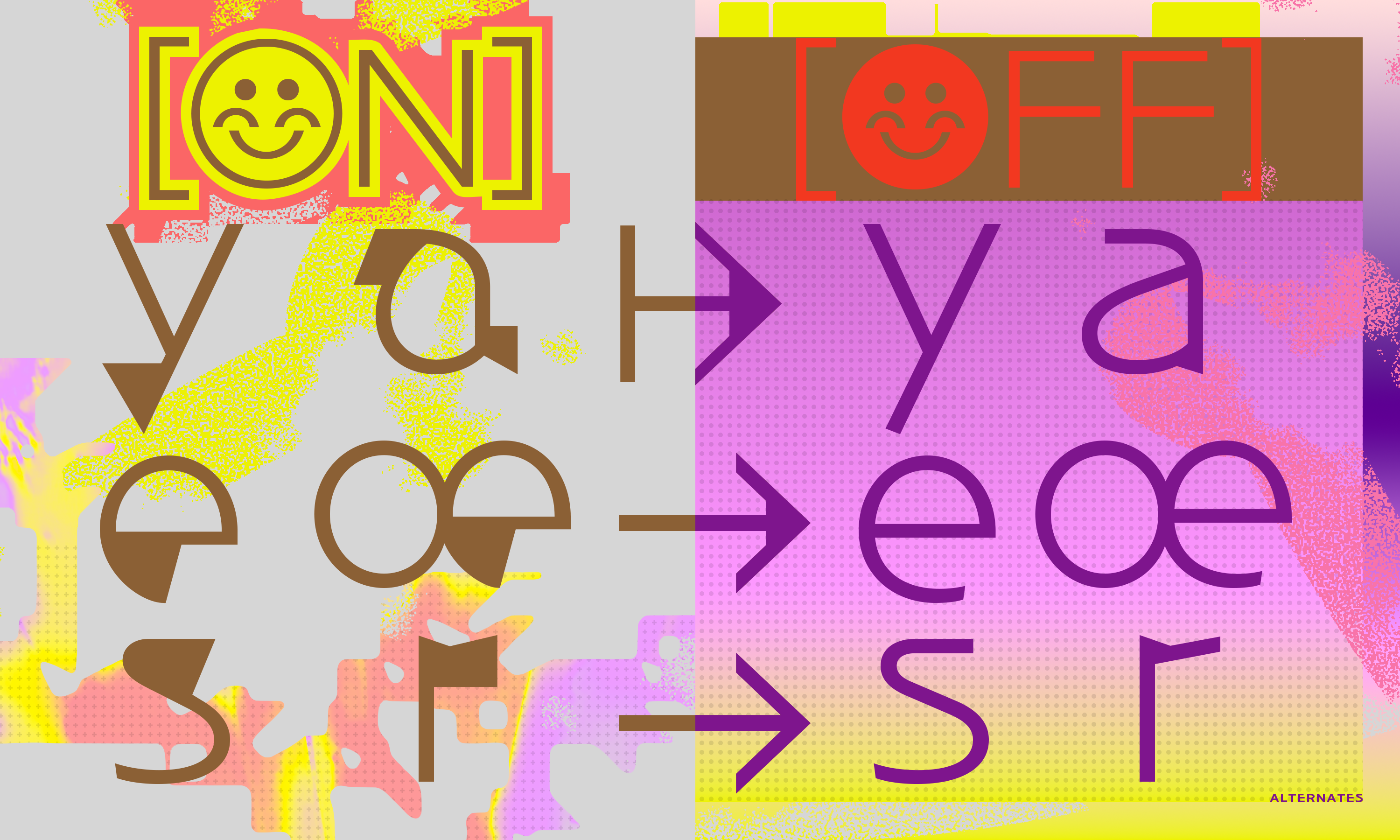
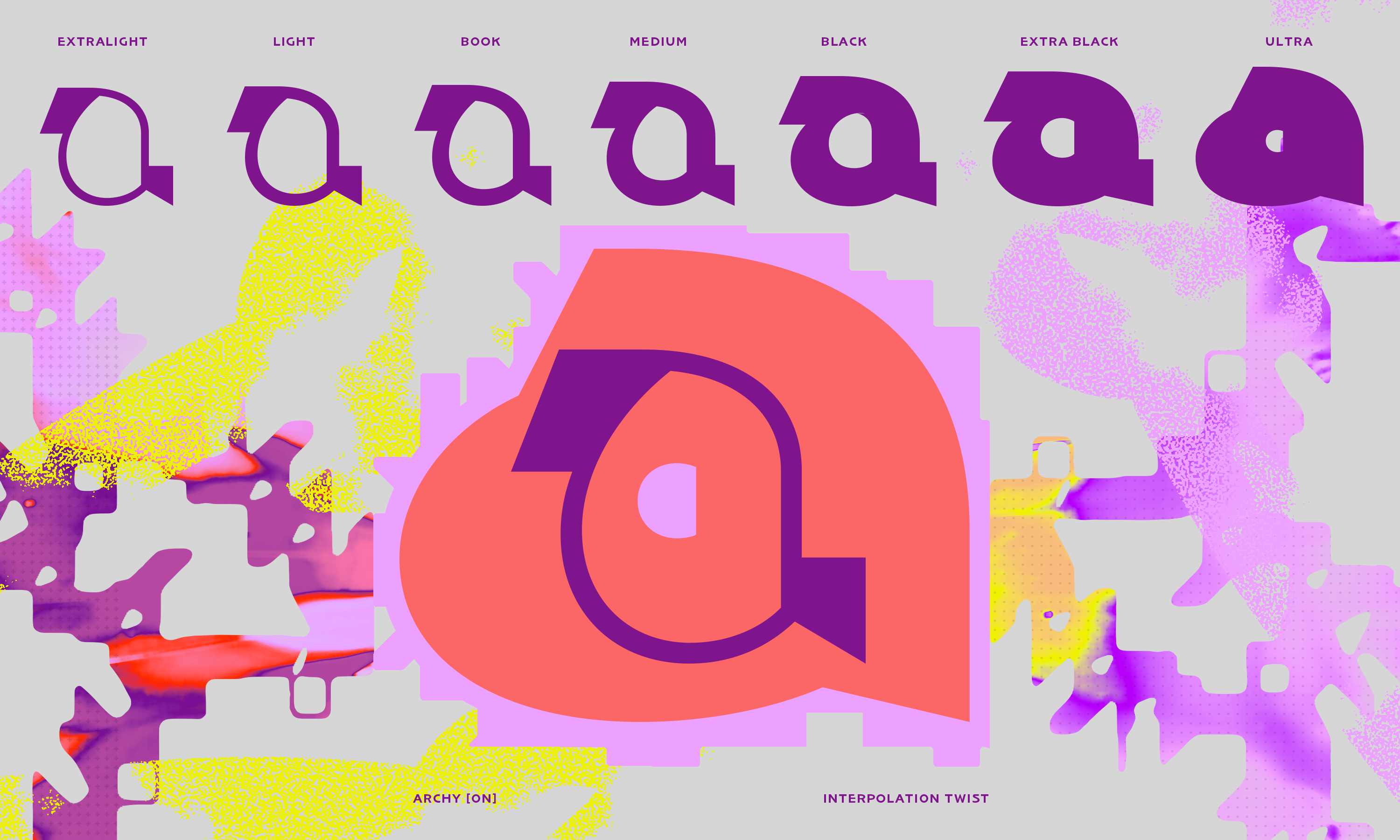
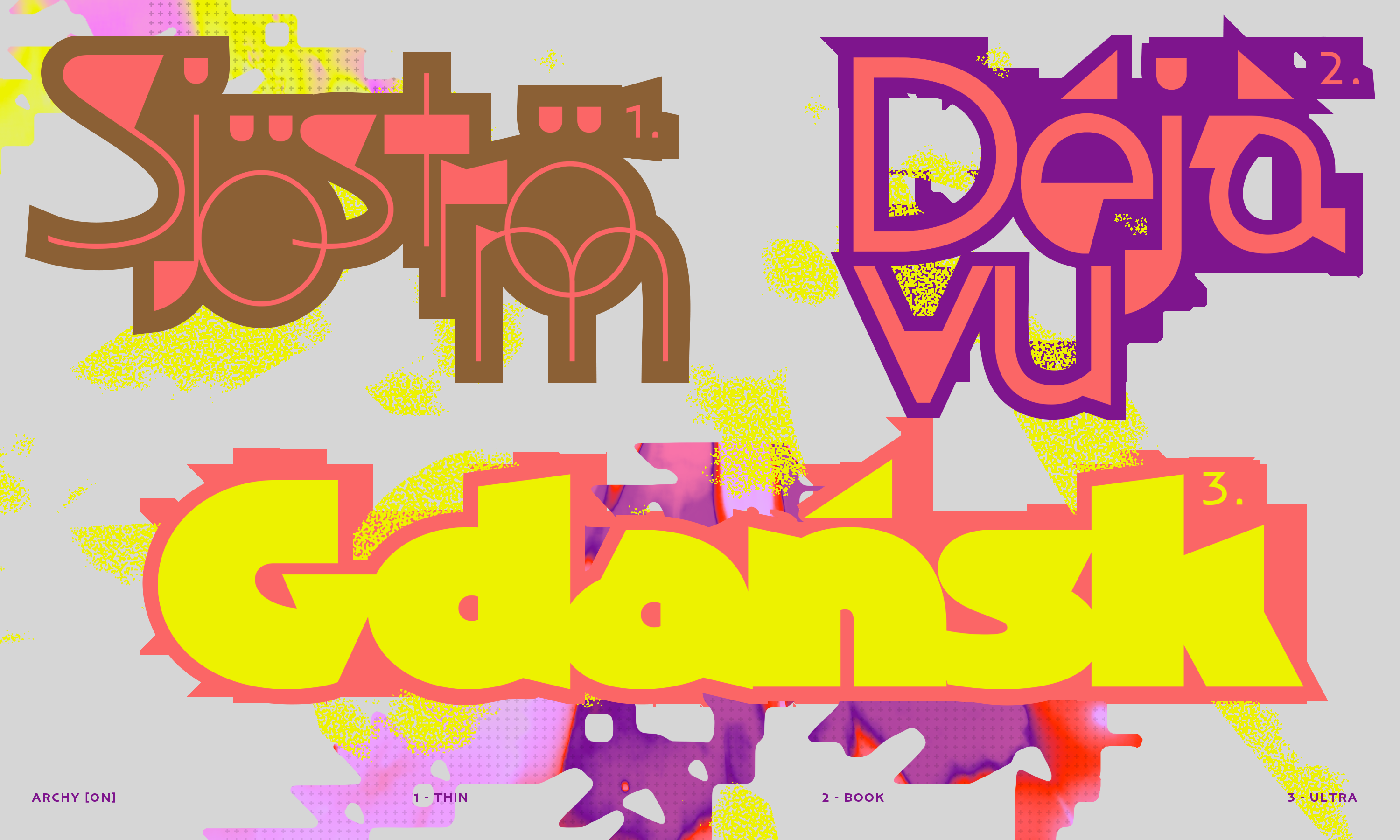
In this article, Hélène Marian delves into the process behind the creation of NaN Archy, her new release at NaN, a non-literal glitchy transcription of her hand-lettering practice.
What begun as a simple translation from brush to machine became an introspective journey on what designing a typeface actually means today (and maybe only today). It’s also a testimony of the center place of the human hand and eye in the type making process.
A Magic Trick?
Everything in type design is but an illusion: to appear identical or aligned, shapes need to have different sizes and weight (we call that “optical corrections”). This is the abc of type design.
Behind these billions of engineered curves lies a very manual and organic work, correcting geometro-digital perfections that would look just odd to the human eye. One has to alter them in a perfect but non mathematical way in order to trick other human eyes, closer to distorting mirrors than to precision lenses. In that, type design is but a complex magic show where the designer uses their tricks to produce shapes that should be perceived without intention, without humanity, transparent. We use to say that a good typeface is one that makes itself be forgotten. The crystal goblet metaphor.
What if disclosing some of these tricks, making them visible, instead of destroying the show, gave it even more spice? From its blackest to its thinnest style, NaN Archy brings you behind the type making scene, letting you squint at the hours of rehearsals necessary to the credible disappearance of the rabbit in the hat.
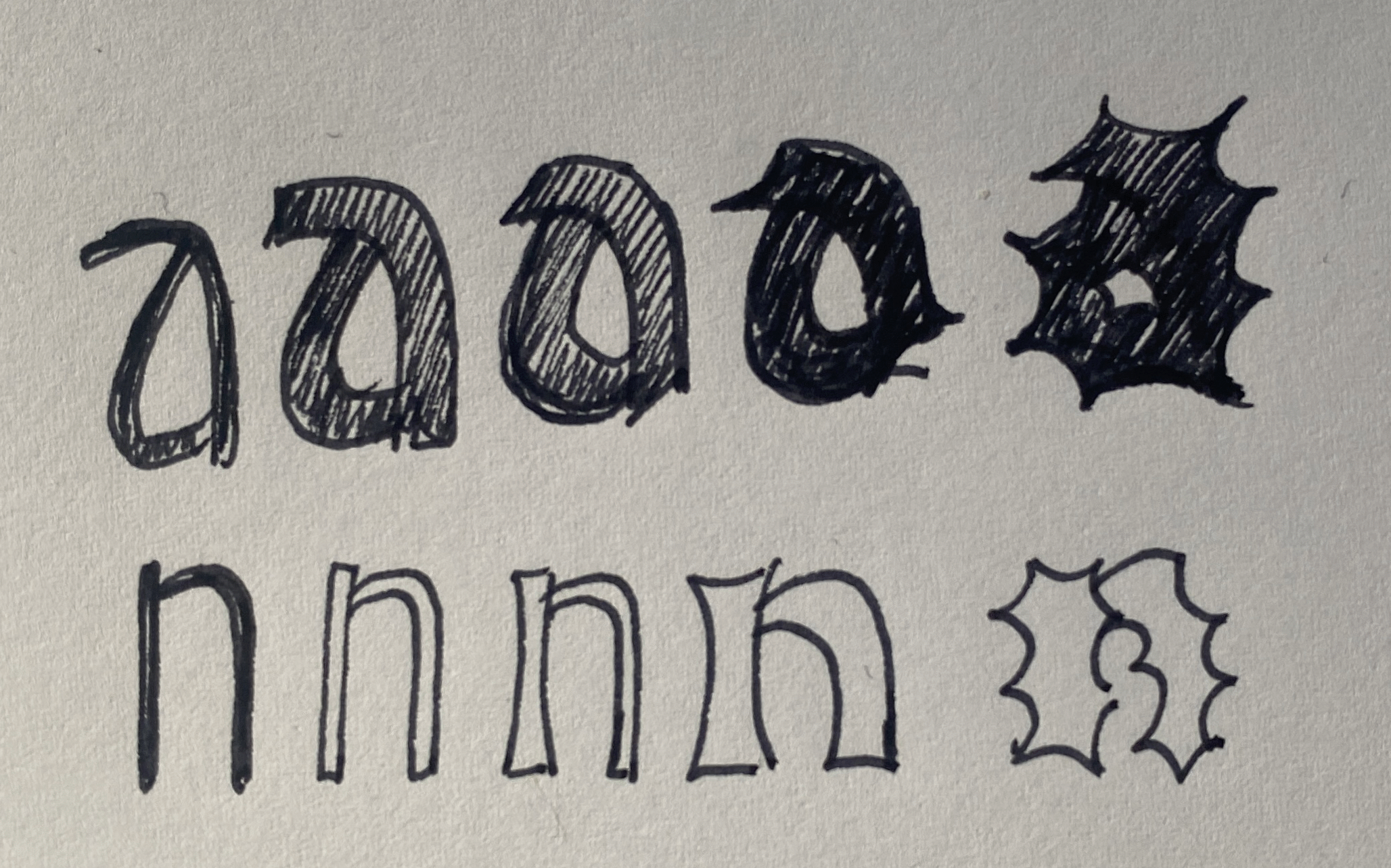
Uniform Rhythm is Soooo 20th Century (In Progress as a Process)
A bold weight is rarely automatically made from a regular, there is no really convincing “draw bold” button in our software (yet). But instead it is consciously drawn by the designer to tell the particular story of a typeface, controlling the extreme weights. In Archy, the boldest weights were sketched before the thinner ones. The skeleton was then extracted from the flesh of the bolder styles. My first dabble in the realm of retail variable fonts, Archy is a reflection about the nature of boldness differences in a type family and of the creative possibilities that the relationships between the different weights offer. What do they have in common, what opposes them, and which choices a designer has to make when drawing a matching thin and black weights?
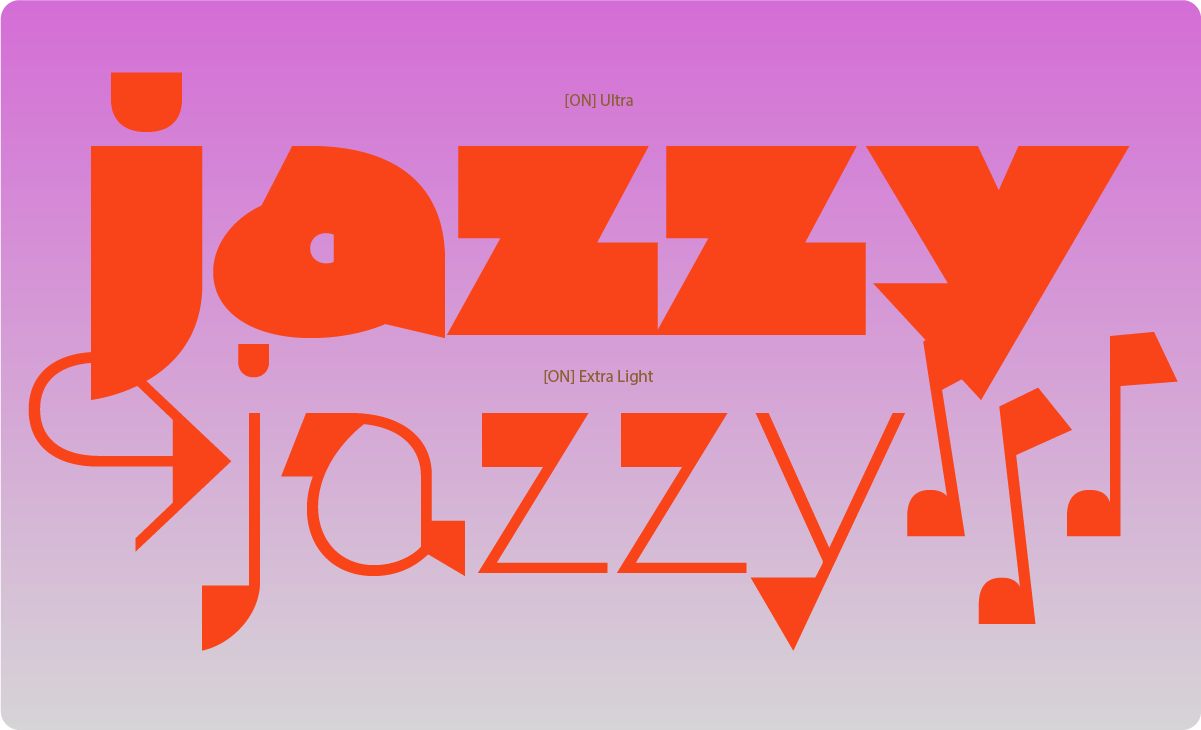
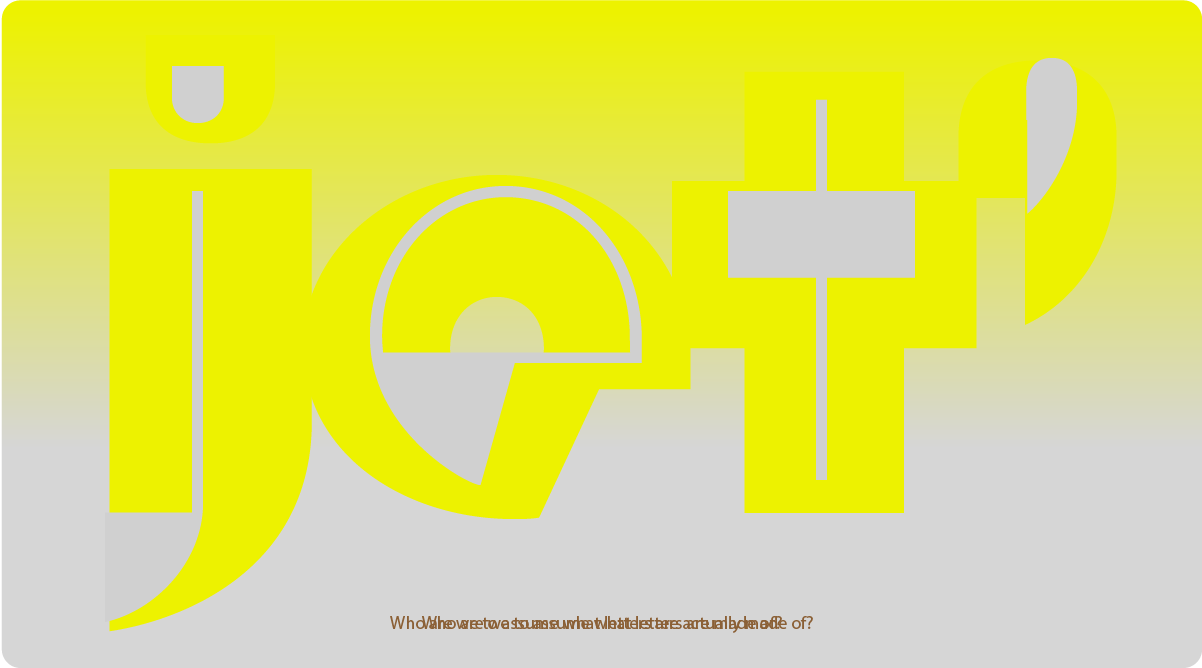
NaN Archy exposes the hidden layers of the design process, revealing in its shapes the decisions that were made in the change of weight. Finally a bit of honesty in this world of false pretense! It is an attempt to reveal the type design process and its choices.
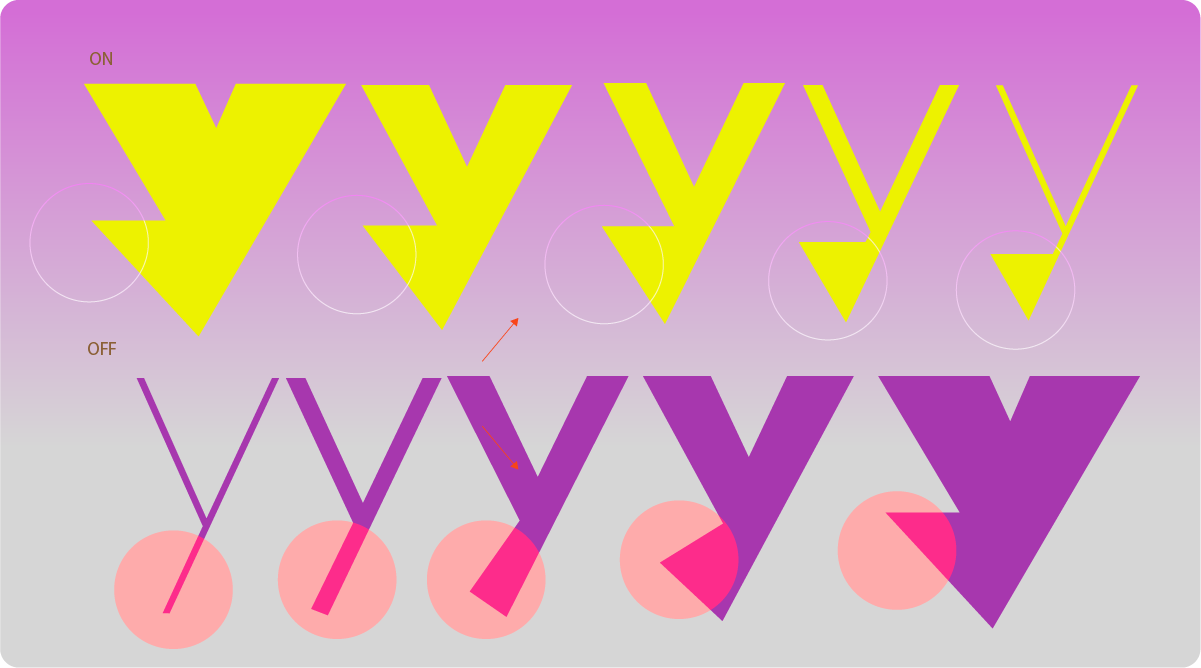
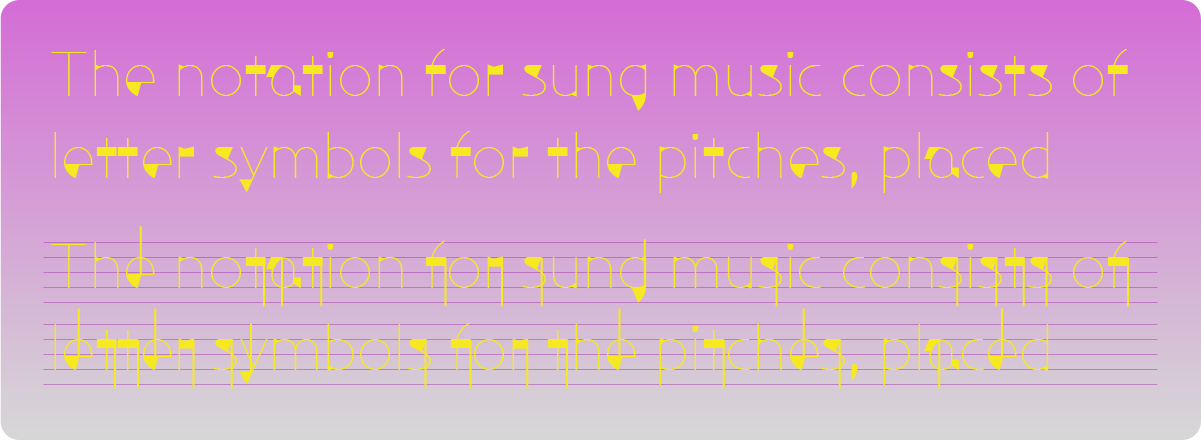
The faux-glitches that can be seen in NaN Archy ON are in fact some artefacts of the design process that have been kept, then refined, homogenized and crafted to be fully part of this typeface. They were brewed in this font by a constant back and forth, the drawing process made immodest. The result is a musicality very specific to Archy in its lightest styles. With these voluntary spots and stains, Archy turns its back to the traditional notion of an uniform rhythm for a typeface. In that, it embraces some of the music that was always there during its design process and that my lettering were made for: experimental and noise musics that question the notion of harmonies and consistent rhythm that are ubiquitous in most music productions.
From Brush to Vector – to Even More Vectors
What if the skeleton of a character wasn’t simply a lighter version, but a past or future version of itself? What will be left of our glyphs when time will uncover their bones? What will we discover? Were these “a” made of sweat or of electricity? Of ink or of coordinates?
Bottom Left and Top Right: First digital sketches.
If my first sketches, the embryo of this typeface, were indeed made by hand, with brushes and wet paint, the digitization process sometimes left me the impression to have painted with lithium. It’s an hybrid story that NaN Archy tries to tell, from the thick masses hand-painted in a tangible reality towards their digital future: what’s left of them, what’s left of the hand, what was lost, and what they became, what was added with their vector transition.
What starts out as generous human-like and gestural flesh appears, as its thinner weights, as a rationalized and digitized skeleton.
Becoming a system, they admittedly lost a part of their liveliness in the trip, but they gained in autonomy and in potential: from one single immutable physical stroke, they can now become an infinity of texts. With a tonality that reveals itself different with every weight, from warm to cold, soft and plum to mechanical, many are the tricks to be invented while typesetting with NaN Archy.
“2 for One / Twenty for Ten”
Archy is not a statement. It’s been crafted to be a widely usable and versatile typeface. Once you deactivate and mute those glitches, you get a text typeface that oddly still has a distinctive voice, or should we say voices. NaN Archy OFF is the quieter counterpart of NaN Archy ON, where glitches were removed and tamed. The result is a calmer typeface, a more legible one suited for long-form text-setting.
What appears in Archy OFF are the remnants of the hand-painted origin of the family. The structures are the ones of a gentle humanist sans serif. The proportions born from my hand also give it a slight Art-Déco undertaste. The open counters and vertical stroke endings make it affable and legible at small sizes.
ON and OFF, each subfamily unveils different possibilities: from serious to playful, geometric to dynamic, dry to generous, human to digital.